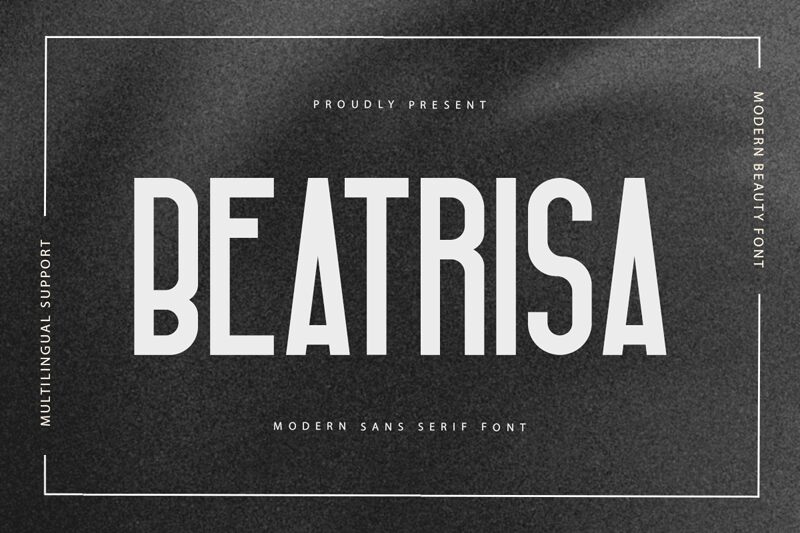
Beatrisa font, designed by Kong Font, is a striking sans serif typeface that commands attention with its distinctively condensed structure. Its elegant lines and streamlined form create a modern aesthetic that is both refined and approachable. The subtle curves add a touch of sophistication, while the bold presence makes it versatile for various applications.
Ideal for contemporary branding, fashion ads, and digital interfaces, Beatrisa stands out in both print and online environments. Its unique characteristics lend themselves beautifully to headlines or logotypes that require clarity combined with stylistic flair. This font elegantly balances minimalism with impact, making it an excellent choice for designers looking to evoke a sense of modernity coupled with charm.